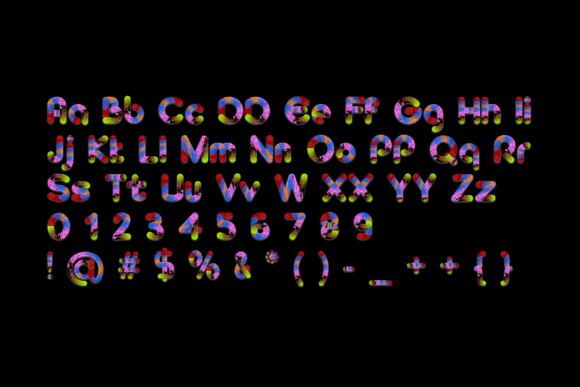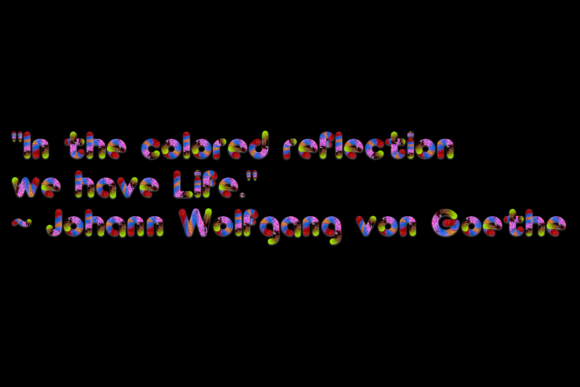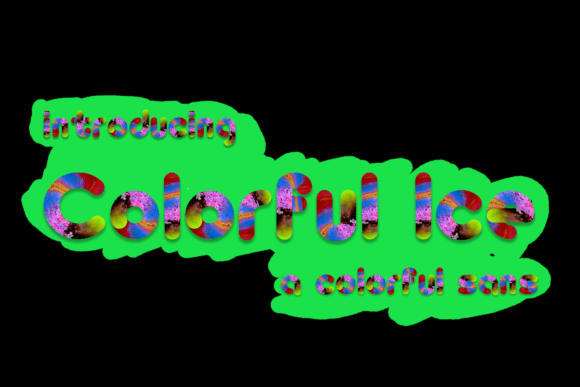
Introducing Colorful Ice Font: Add a Splash of Fun and Joy to Your Designs!
Are you tired of using the same old boring fonts in your designs? Look no further! Colorful Ice Font is here to add a touch of youth and joy to your party invitations, gatherings, and pretty much any design that needs a pop of color and fun. This vibrant and playful color font is perfect for designers and crafters who want to make their projects stand out from the crowd.
What is Colorful Ice Font?
Colorful Ice Font is a unique and exciting color font that combines fun and friendliness in a single design. This Opentype-SVG font is compatible with popular design software such as PhotoShop, Illustrator, Silhouette, and Inkscape, making it easy to incorporate into your workflow.
Key Features of Colorful Ice Font
- Colorful and playful design: Add a splash of color to your designs with this fun and friendly font.
- Youthful and joyful vibe: Perfect for party invitations, gatherings, and other designs that require a playful touch.
Design Ideas with Colorful Ice Font
Colorful Ice Font is perfect for a variety of design projects, including:
- Party invitations: Add a splash of color and fun to your party invites.
- Gathering announcements: Create eye-catching announcements for your gatherings and events.
- Craft projects: Use Colorful Ice Font to add a playful touch to your craft projects, such as cards, scrapbooking, and more.
- Social media graphics: Create engaging social media graphics with a pop of color and fun.
Colorful Ice Font is a fun and friendly color font that’s perfect for designers and crafters who want to add a touch of youth and joy to their projects. With its compatibility with popular design software and easy-to-use design, this font is sure to become a favorite in your collection. So why wait? Download Colorful Ice Font today and start creating colorful and playful designs that will make your projects stand out from the crowd!